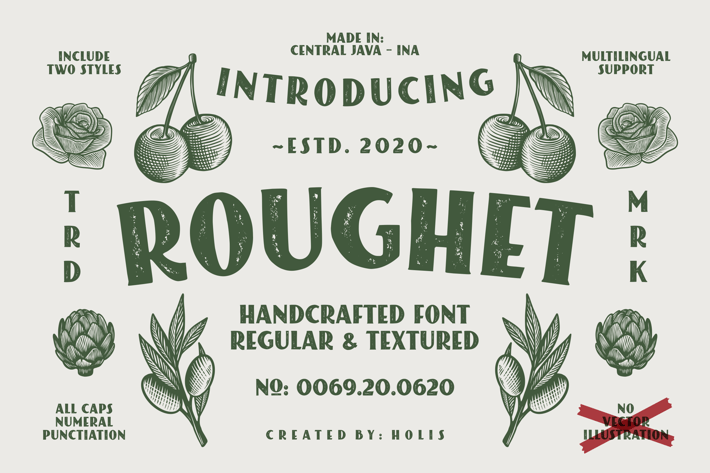
ROUGHET TYPEFACE
ROUGHET is a sans serif font with a rugged style aimed at designs with classic and vintage styles. This font is available in 2 styles.
All Uppercase